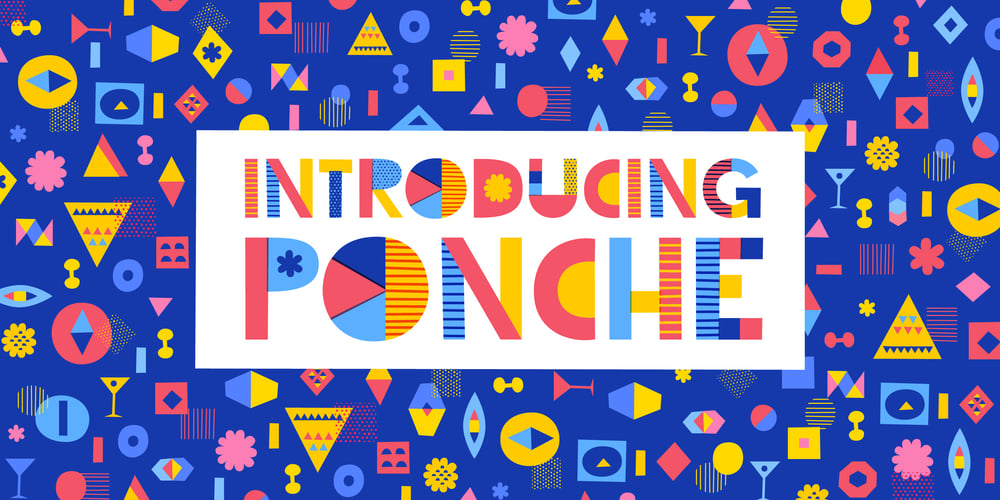
Ponche
Ponche font
Ponche Font Family was designed by Alejandro Paul, Juliana Pedemonte and published by Sudtipos. Ponche contains 2 styles and family package options. A collaboration between Juliana Pedemonte (illustrator) and Ale Paul (type designer) for Sudtipos as part of the first project at the foundry between illustration and type design to create a collection of colorfonts. About the font: Ponche is a fun, warm, upbeat color font that will make your personal or commercial project pop with its unique graphic look. Recommended for any work that requires an eye-catching effect such as social media posts, website headers, ads, posters, products and stationary designs. You can expand it to pick your own colors and it comes with alternate characters to improve your experience. Package: Ponche comes in file with a pre-defined color palette. You can always change the colors converting the text to outlines. Technical info to use: The package contains a normal OTF font in Black and White and a colorfont in SVG-TTF format. To be able to use the color file you need to have installed Adobe Photoshop CC2017 or Adobe Illustrator CC2018. Not all the browsers support color fonts so please be sure to use them as graphics.